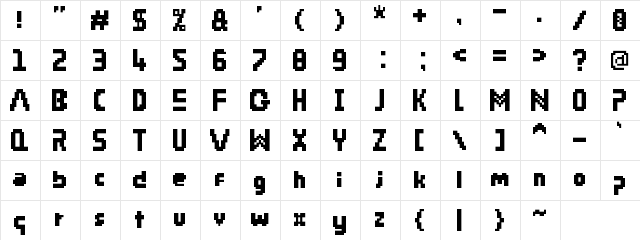
Pix Riddim Regular
Design Context for Pix Riddim Typeface
Pix Riddim offers clean, dependable letterforms without strong stylistic allegiance, making it a practical choice for designers who need flexibility.
Pro Tip: Pair Pix Riddim with a font of contrasting weight or personality to build a more expressive typographic hierarchy.